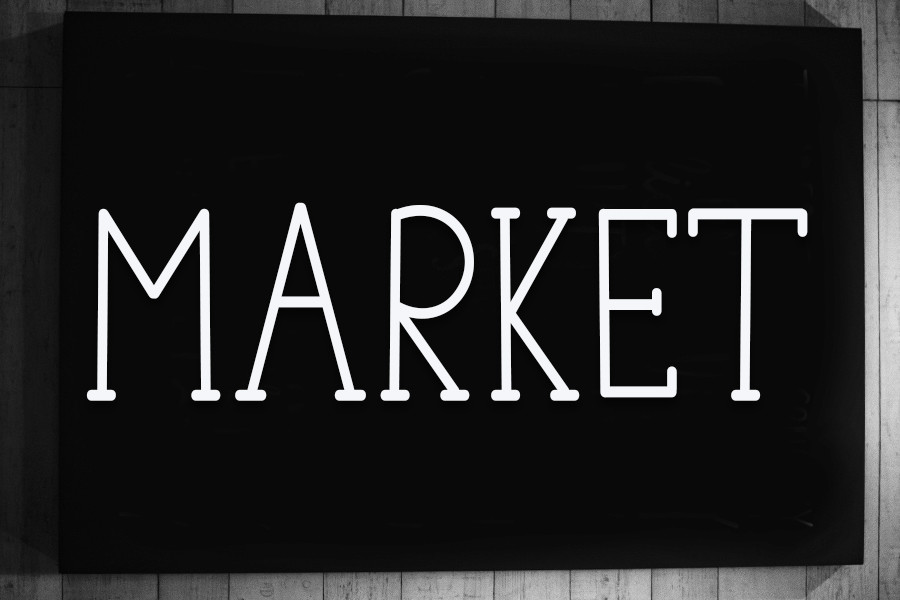
Market is a stylish serif font with a contemporary atmosphere and impeccable form, inspired by timeless classic calligraphy. It will look outstanding in a wide range of contexts.